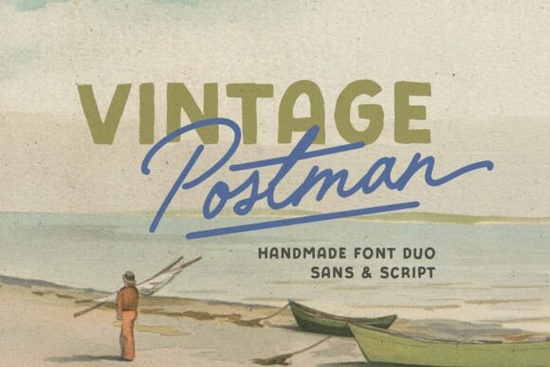
If you're looking for a typeface that brings an authentic retro feel to your work, the Vintage Postman font duo is worth a close look. It pairs a bold sans-serif with a smooth monoline script, giving you two complementary styles in one package. Whether you design posters, logos, quotes, or branding materials, this handmade set delivers that worn, nostalgic look many creatives are after.
What Makes This Font Duo Stand Out?
Most retro fonts come as a single style. Vintage Postman gives you two complete styles a bold sans and a monoline script that were designed to work together. You don't need to hunt for a matching pair. They already complement each other.
The script font also includes:
- Alternates swap letterforms for a more natural, hand-lettered look
- Ligatures smooth connections between common letter pairs
- Decorative lines extra elements to frame or accent your text
These extras save time and let you customize your designs without switching fonts or adding separate graphic elements.
Who Is This Font Best For?
This font works well for a range of creative projects and skill levels. Here are some common uses:
- Print-on-demand sellers who need vintage-looking text for t-shirts, mugs, and posters
- Small business owners creating logos, menus, packaging, or signage with a classic feel
- Crafters making greeting cards, invitations, or wall art with Cricut or Silhouette machines
- Social media creators designing quote graphics and promotional posts
- Graphic designers working on branding projects that call for a retro or handcrafted aesthetic
The monoline script style is especially useful for designs where you want a casual, handwritten quality without the roughness of an actual brush script.
Does It Support Multiple Languages?
Yes. Vintage Postman includes multi-language support, which means you can use accented characters for languages like French, Spanish, German, Portuguese, and more. This is a practical feature if you sell designs internationally or work with clients in different regions.
Not every script font handles extended characters well, so it's worth checking before you commit to a typeface. In this case, the coverage is solid.
How Does It Compare to Other Script Fonts?
Each of these serves a different purpose. The Vintage Postman font fills the niche for retro and old-school designs where you want something handmade but still clean and readable.
Tips for Getting the Most Out of This Font
Here are a few practical suggestions based on common use cases:
- Pair the bold sans with the script for headlines use the sans for the main word and the script for accents or secondary text
- Explore the alternates in the script font to avoid repetitive letter shapes, especially in longer words
- Use the decorative lines as dividers or underlines to give your layout a finished, polished look
- Test at different sizes the bold sans reads well at small sizes, while the script works best at medium to large display sizes
- Check your color contrast vintage designs often look best with muted or earthy tones paired with dark or cream backgrounds